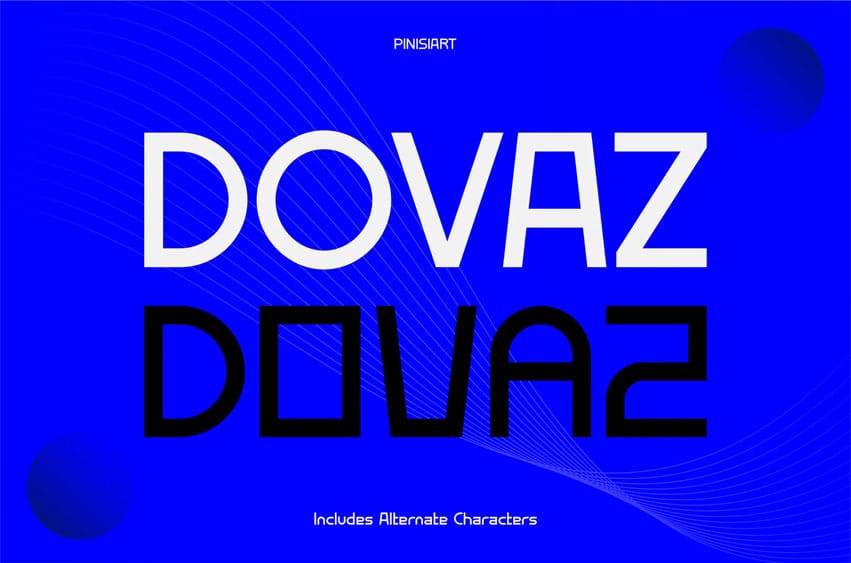
Dovaz Font is a futuristic geometric display typeface designed with bold structure, sharp angles, and unique alternate characters that give every design a distinct edge. With its low-contrast strokes and innovative letterform cuts, this font feels both modern and expressive, making it perfect for tech-driven visuals, editorial layouts, and startup branding. Its alternate characters provide flexibility, allowing you to craft headlines or logos with a custom look and feel.
If you’re building a startup identity, designing a technology poster, or creating a digital campaign, DOVAZ delivers a forward-looking vibe that grabs attention and conveys innovation. Its alternate letter options give designers the freedom to build versatile logotypes, striking website headers, and futuristic product packaging that stand out in competitive markets.
Key Features :
- Bold & Futuristic: Modern geometric shapes that create impact.
- Alternate Characters: Multiple glyph variations for customized style.
- Versatile Usability: Perfect for branding, UI design, editorial, and corporate visuals.
- Tech-Driven Aesthetic: Ideal for startups, apps, gaming, and futuristic marketing campaigns.